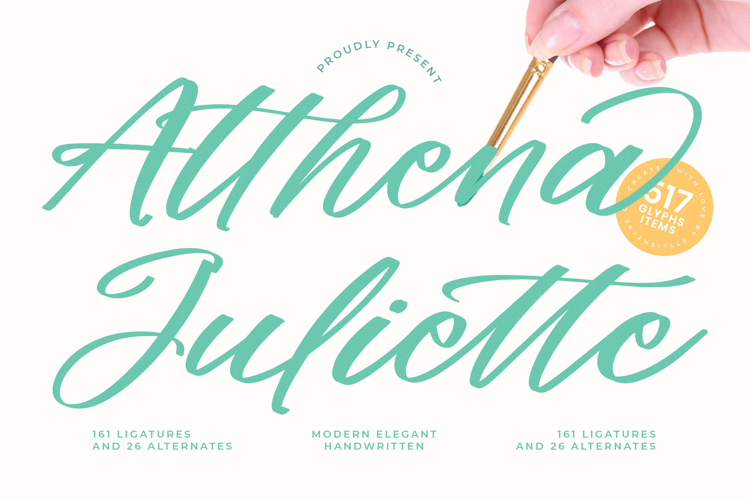
Althena Juliette - Modern Elegant Handwritten
Althena Juliette - Modern Elegant Handwritten captures the effortless grace of a skilled calligrapher's touch. This exquisite script typeface balances spontaneous brush strokes with refined elegance, delivering a look that is instantly memorable and highly expressive. The generous flow and organic connections ensure text maintains a natural, continuous rhythm, perfect for conveying authenticity and premium quality in all marketing assets.